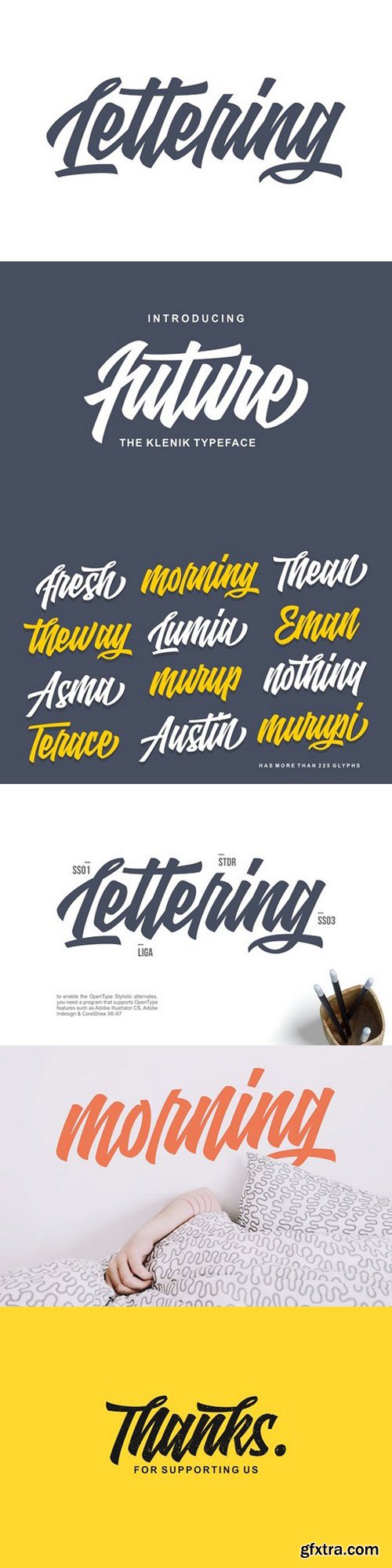
Future Script Typeface that we made to give you ease in accomplishing the work of typography such as logotype, poster, headline, T-shirt and other creative projects. to enable the OpenType Stylistic alternates, you need a program that supports OpenType features such as Adobe Illustrator CS, Adobe Indesign & CorelDraw X6-X7